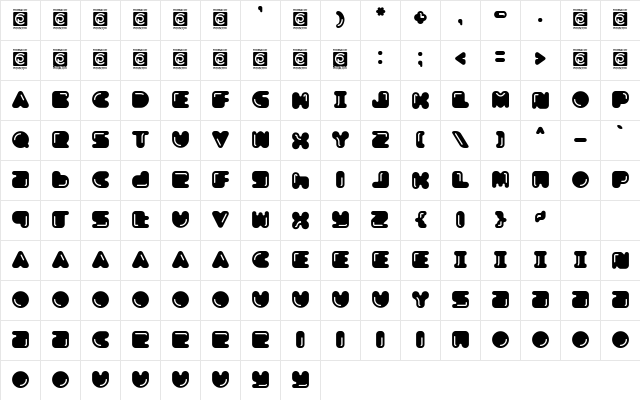
Boldest Free
| Foundry | Putracetol Studio |
| Designer | Putra Novembria Candra Kusuma |
Design Context for Boldest Typeface
Boldest is a composed and adaptable typeface that performs quietly and consistently across a wide range of design contexts. The heavy weight commands attention and anchors typographic hierarchies.